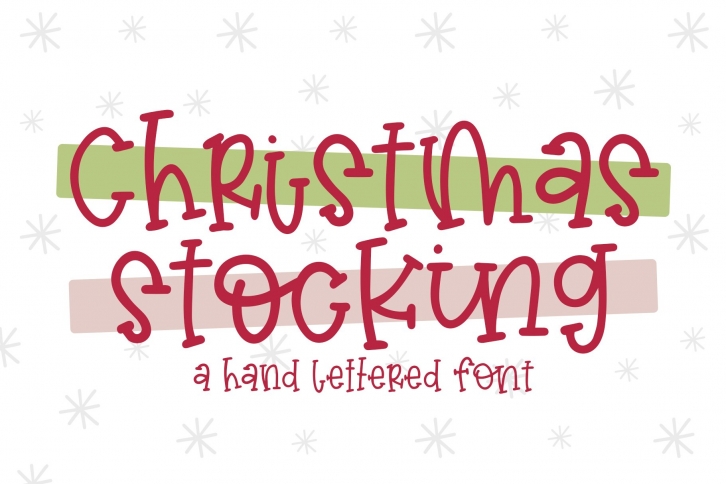
A super cute hand lettered font that can be used for any occasion! Christmas Stocking includes 40 ligatures for a more unique and hand lettered feel!
This font can be used for all kinds of things such as Cricut projects, digital designs, social media, invitations, shirts, mugs, wood signs, and so much more!